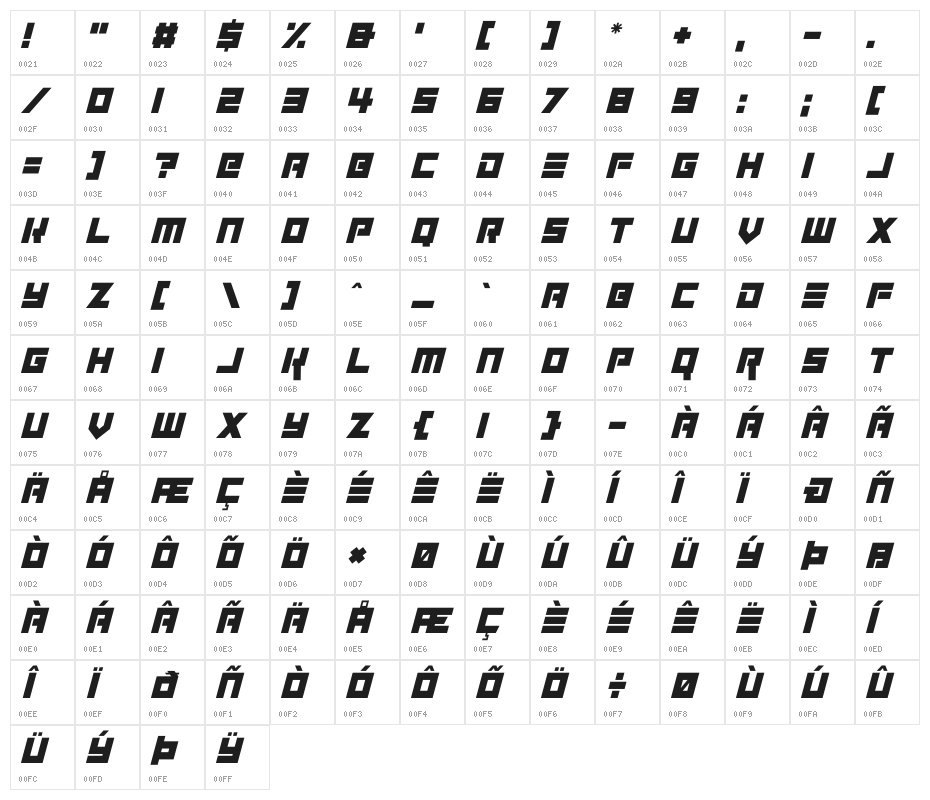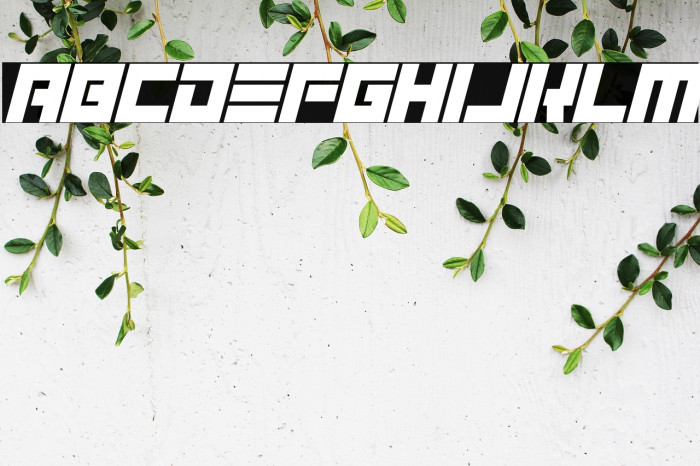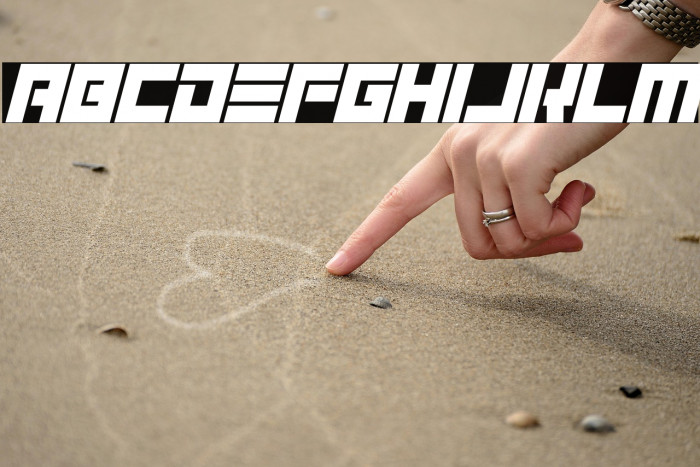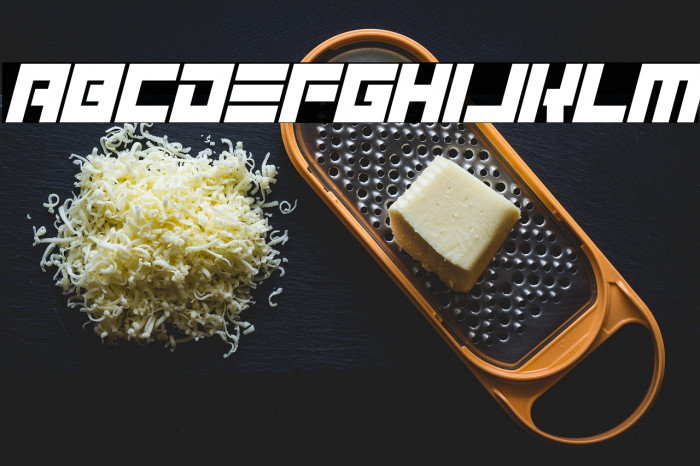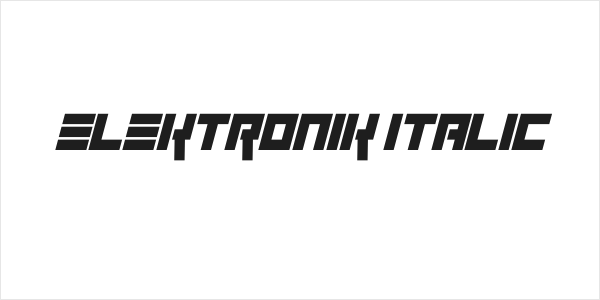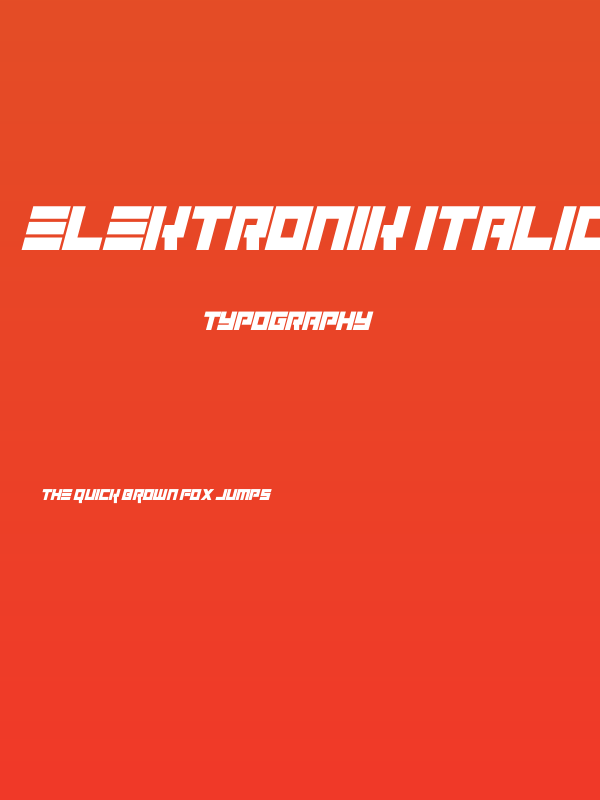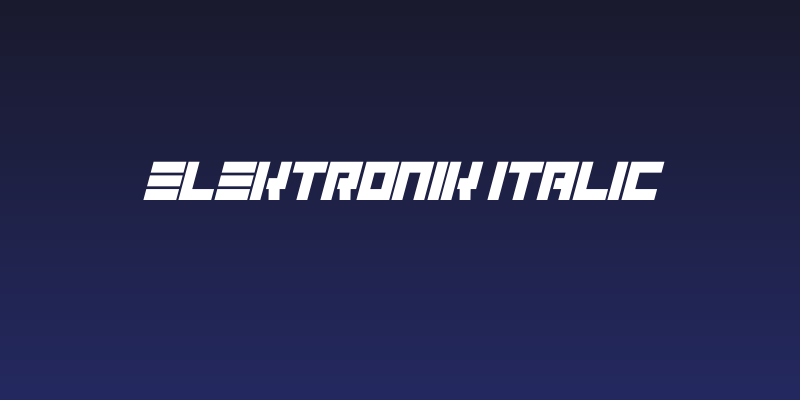
Elektronik Italic Font
Elektronik Italic Description
This font features a bold, italicized style with a futuristic and angular design. The characters are sharply defined with a consistent slant, giving a sense of motion and speed. The uppercase and lowercase letters maintain a uniform height, contributing to a cohesive appearance. The numbers and special characters are designed to match the boldness and angularity of the alphabet, ensuring a seamless integration across all glyphs. The overall aesthetic is modern and tech-inspired, making it suitable for projects that require a dynamic and edgy look.
Proposed ProjectsIdeal for technology branding, video game titles, sci-fi posters, and digital interfaces.